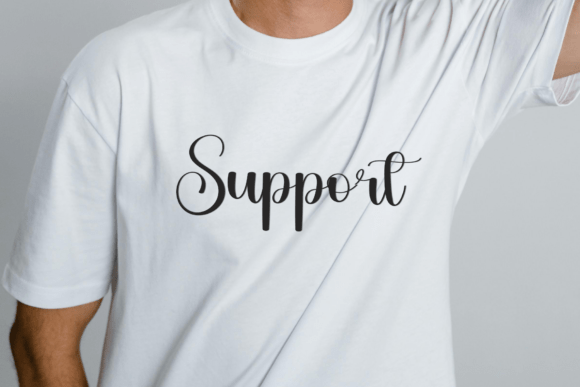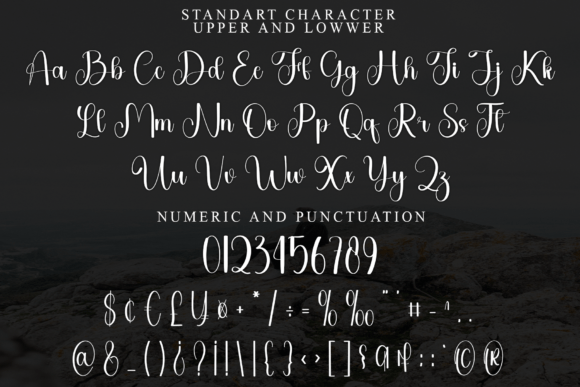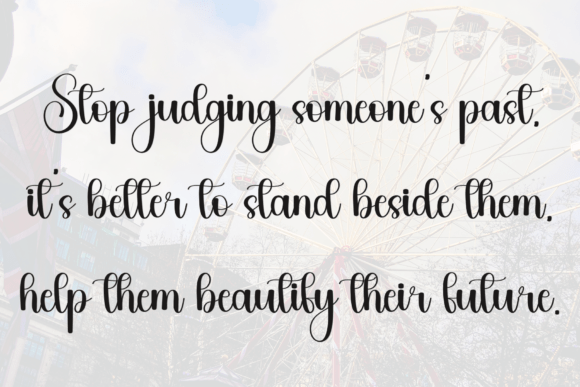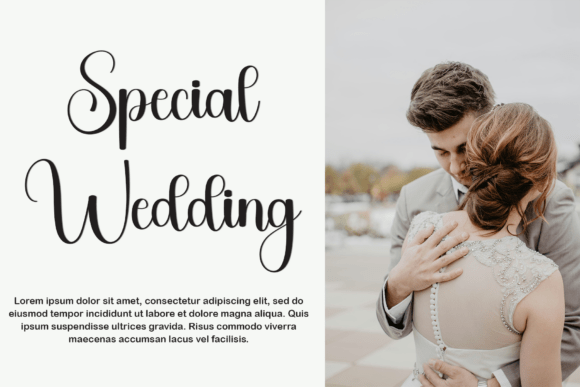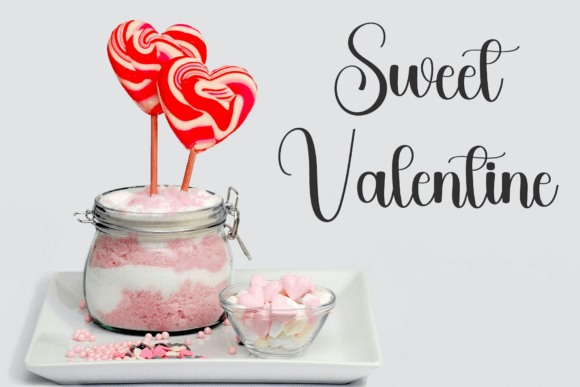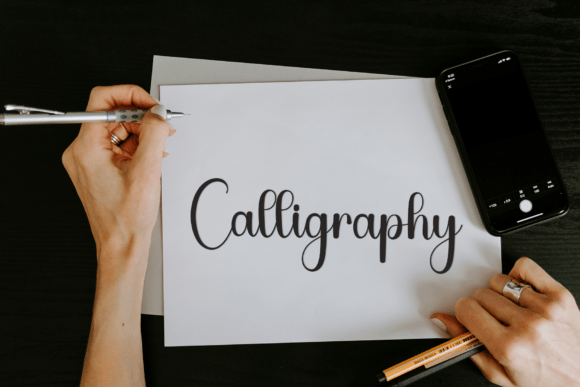
The Magic of Fishing Font: A Festive Holiday Typeface
Ah, the holiday season is upon us, and as designers, we’re often tasked with creating festive and merry designs that capture the spirit of the season. I recall a particularly stressful design moment when I was working on a holiday greeting card project, and I just couldn’t seem to find the right font. My client wanted something that would add a touch of enchantment to their words, but everything I tried seemed either too bland or too over-the-top. That’s when I stumbled upon the Fishing Font, and let me tell you, it was love at first sight! ✨
An Honest Review of Fishing Font
So, what makes Fishing Font so special? Here are a few things I love about this beautiful typeface:
- 🎉 Festive and merry vibe: Fishing Font is designed to capture the spirit of the holiday season, and it does so with flying colors. The decorative elements and whimsical flair make it perfect for greeting cards, gift tags, and holiday-themed projects.
- ✅ PUA encoded: This font is PUA encoded, which means you can access all of the amazing glyphs and ligatures with ease. No more tedious searching for the perfect character!
- ✨ Enchanting and nostalgic ambiance: Fishing Font brings a cheerful and nostalgic ambiance to your words, making it perfect for creating holiday designs that feel both modern and timeless.
Of course, no font is perfect, and there are a few small quirks to be aware of:
- 🤔 Limited use outside of holiday season: Let’s face it, Fishing Font is designed specifically for the holiday season, so it might not be the best choice for non-holiday projects.
- ⚠️ Some glyphs may require manual adjustment: While the font is PUA encoded, some glyphs may require manual adjustment to get them to work perfectly in your design.
The Backstory of Fishing Font
Fishing Font was designed by a team of creatives who wanted to capture the magic and wonder of the holiday season. Inspired by vintage holiday cards and decorations, they created a font that would bring a touch of enchantment to any design. With its decorative elements and whimsical flair, Fishing Font is the perfect choice for creating holiday designs that feel both modern and timeless.
| Font Name | Fishing Font |
| What is Fishing Font? | Fishing Font is a festive and merry typeface designed to capture the spirit of the holiday season. |
| Is Fishing Font PUA encoded? | Yes, Fishing Font is PUA encoded, making it easy to access all of the amazing glyphs and ligatures. |